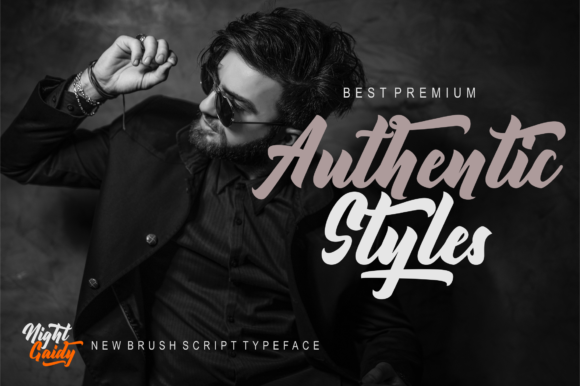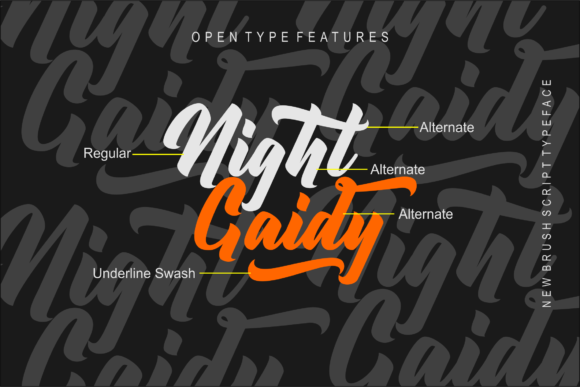
Night Gaidy Font
db-ku.com - Script & Handwritten -- Night Gaidy is a strong, retro and bold script font. It is curved, rounded, and has a unique vintage style, that is perfect for branding.